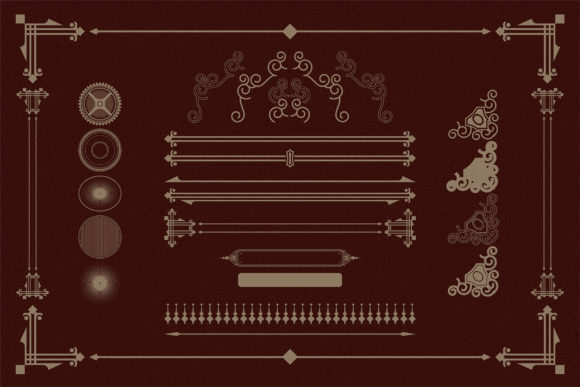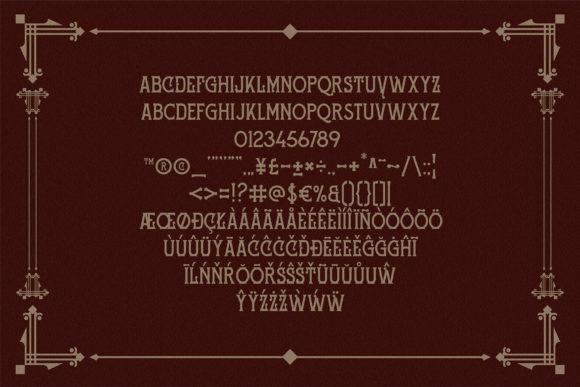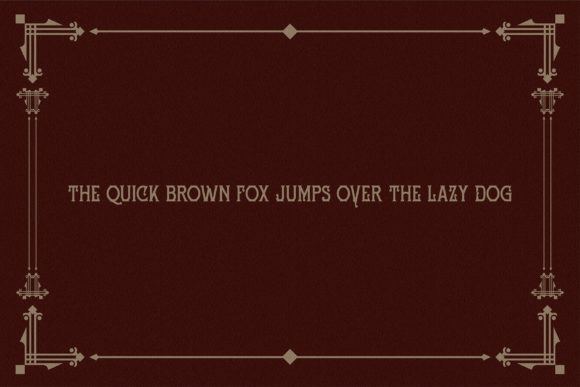
Introduction to Lavosca Font
Have you ever stumbled upon a font that sparks creativity and sets your imagination ablaze? For designers, that moment is like discovering a treasure trove of inspiration. It’s a feeling that’s hard to put into words, but when you find the right font, you know it’s the one. For those who have been searching for that perfect font, we’re excited to introduce you to the Lavosca Font – a bold, vintage styled display font that’s sure to elevate your creative projects.
Lavosca Font is more than just a font; it’s a design resource that can add an extra layer of sophistication to your branding projects. With its high-quality design and transparent background, it’s perfect for logos, t-shirt printing, and other creative products. And the best part? You can download it for free, making it an invaluable resource for designers on a budget.
Whether you’re working on a new branding project or just need a font to give your designs a unique touch, Lavosca Font is an excellent choice. Its assertive style and vintage vibe make it perfect for creative projects that require a little extra flair. So, what are you waiting for? Dive into the world of Lavosca Font and discover a new level of design possibilities.
Key Features of Lavosca Font
- High-quality design: Lavosca Font is a premium design resource ideal for creative projects, offering a sophisticated and elegant look.
Honest Review: Lavosca Font
I recently stumbled upon the Lavosca Font, and I must say it’s been a great addition to my design arsenal. The high quality of this font is immediately noticeable, making it a perfect choice for any creative project.
- ✨ High quality design: The Lavosca Font is meticulously crafted, with clean lines and a unique aesthetic that sets it apart from other fonts.
- ⚠️ Limited character set: The Lavosca Font only includes a limited character set, which may not be suitable for all design projects.
- ⚠️ Not suitable for large text: Due to its unique design, the Lavosca Font may not be the best choice for large blocks of text.
Overall, I’m impressed with the Lavosca Font, and I think it’s a valuable design resource for anyone working on a creative project. While it may have some limitations, its high quality and unique design make it a great choice for the right projects.
The Lavosca Font is a high-quality, free design resource ideal for creative projects that require a unique touch. Its transparent background makes it versatile for use in various digital platforms.
Tips for Getting the Most Out of Lavosca Font
For the best results, use the Lavosca Font in combination with other design elements that complement its unique style. Experiment with different font sizes, colors, and arrangements to create a visually appealing design.
The Lavosca Font is ideal for creative projects such as:
- Infographics
- Brochures